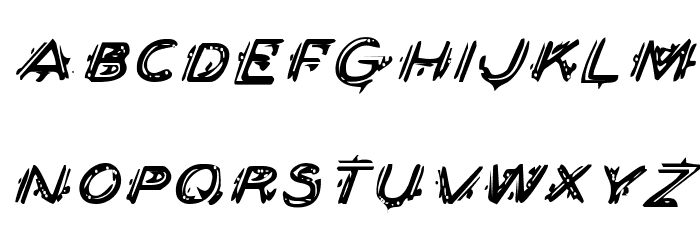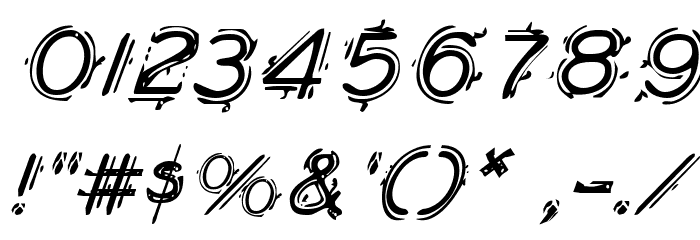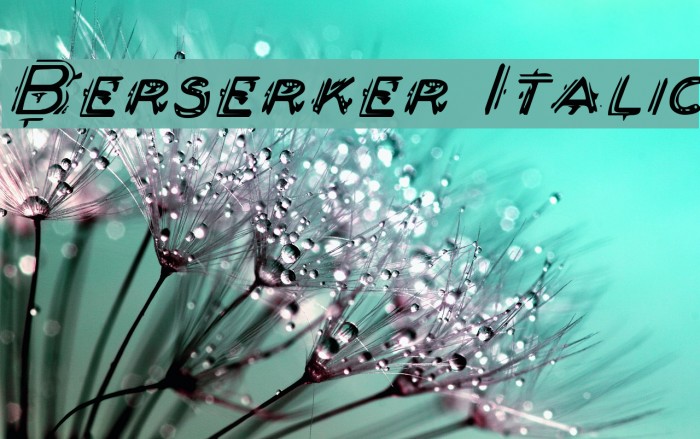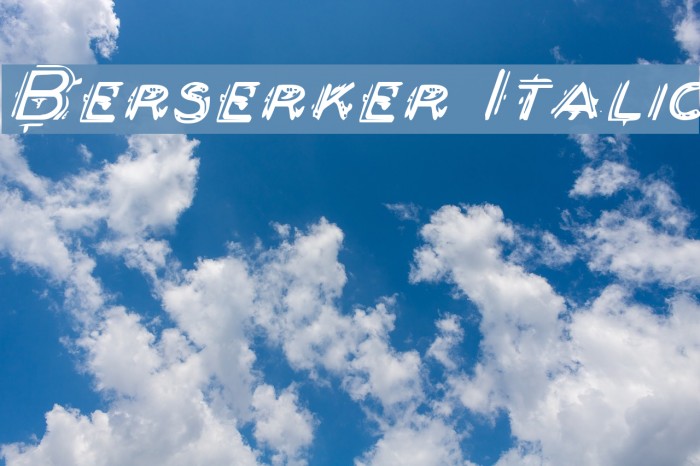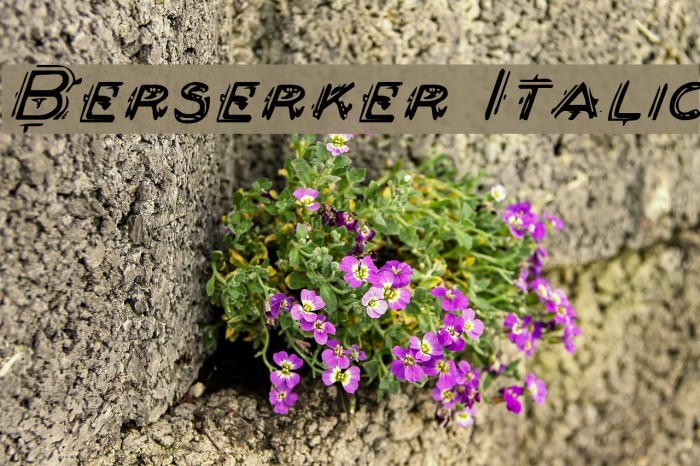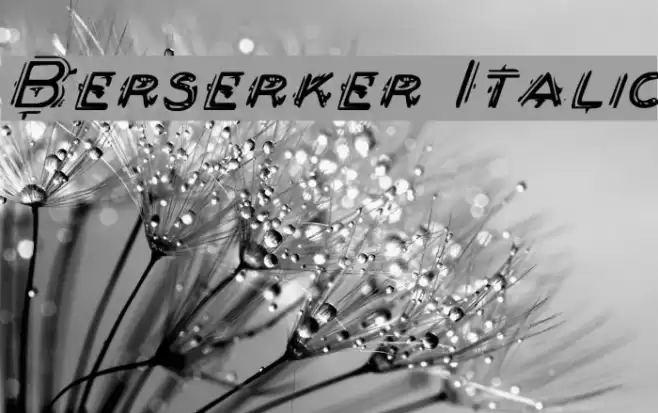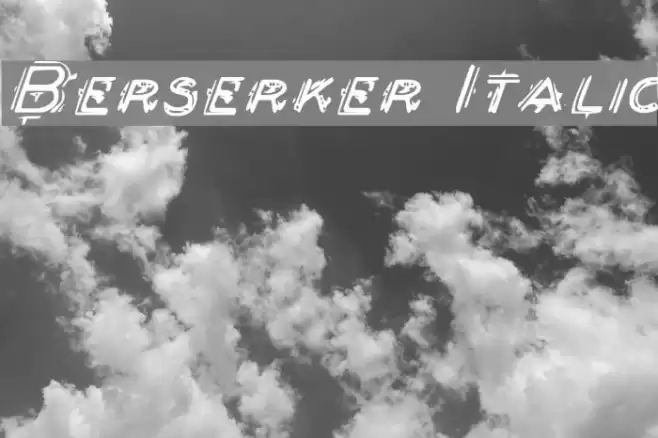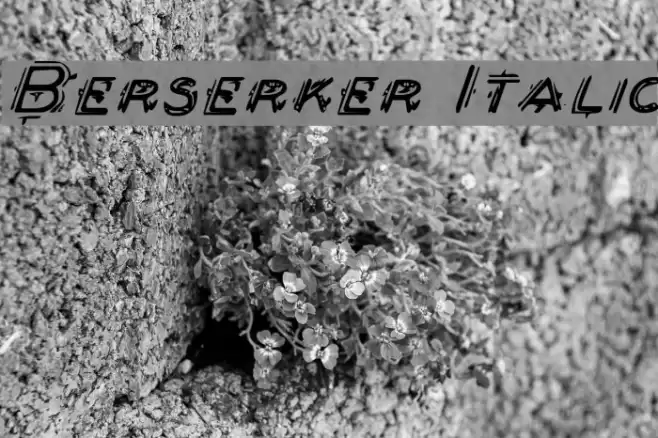
Berserker Italic Font
This font features a dynamic and aggressive style, characterized by sharp angles and a distressed, grunge-like appearance. The letters are italicized, giving them a sense of motion and urgency. The strokes are uneven, with some parts appearing thicker and others thinner, creating a high contrast that adds to the chaotic aesthetic. The font includes both uppercase and lowercase letters, numbers, and a variety of special characters, all maintaining the same edgy and distressed look. This font is ideal for projects that require a bold and unconventional appearance.
A dynamic, italicized font with a distressed, high-contrast style.
- Proposed Projects: Ideal for music album covers, video game titles, posters, and any design needing a bold, edgy look.
- Overall Style: Modern, Grunge